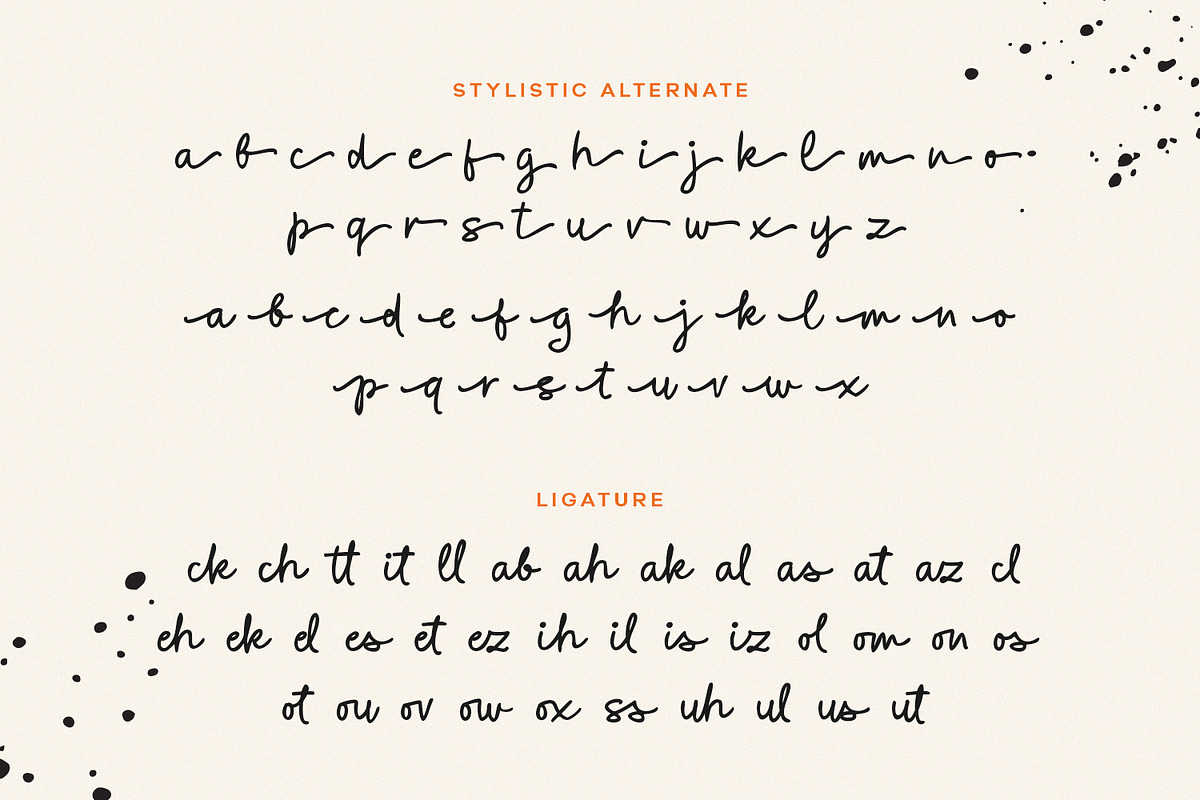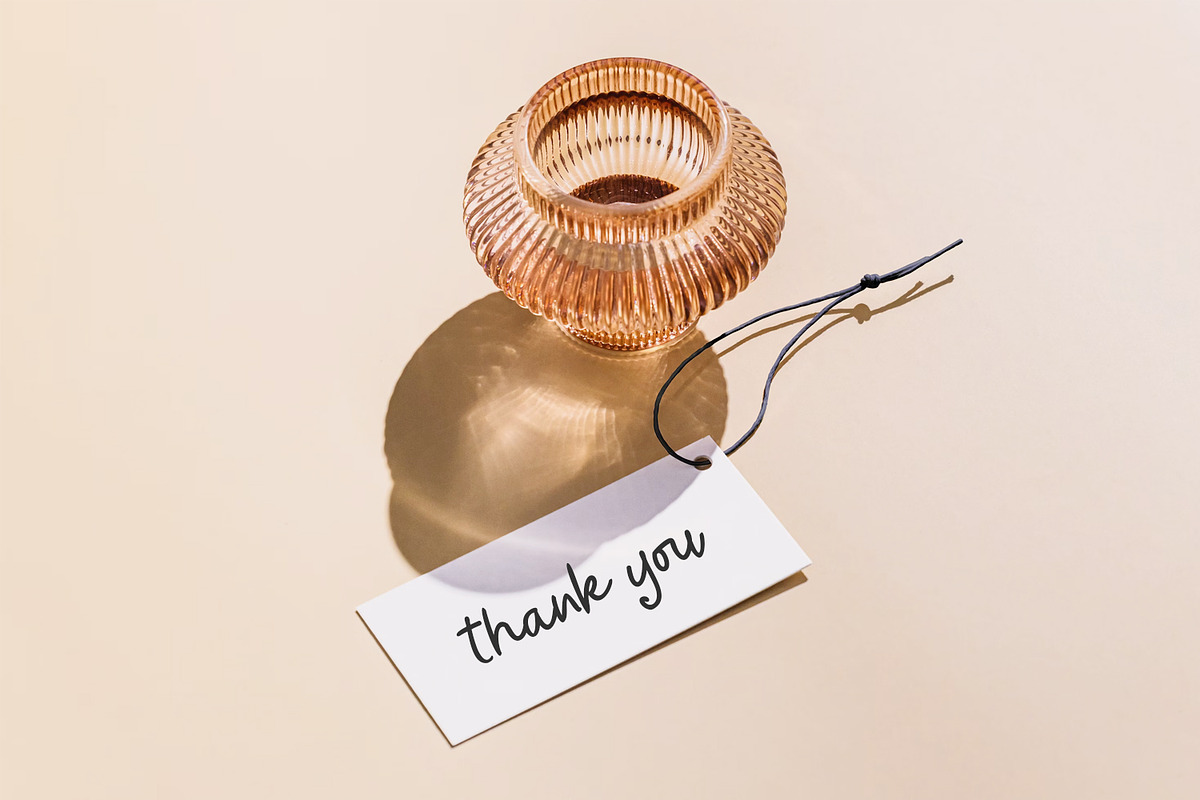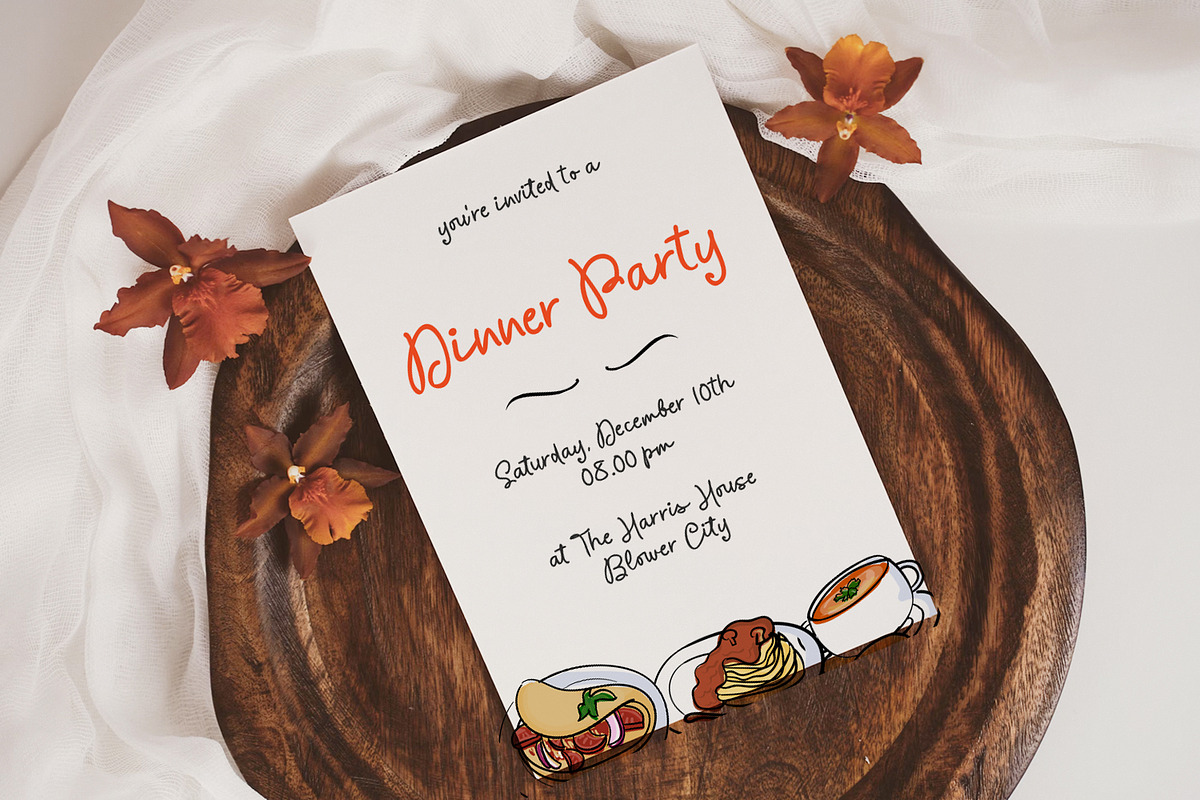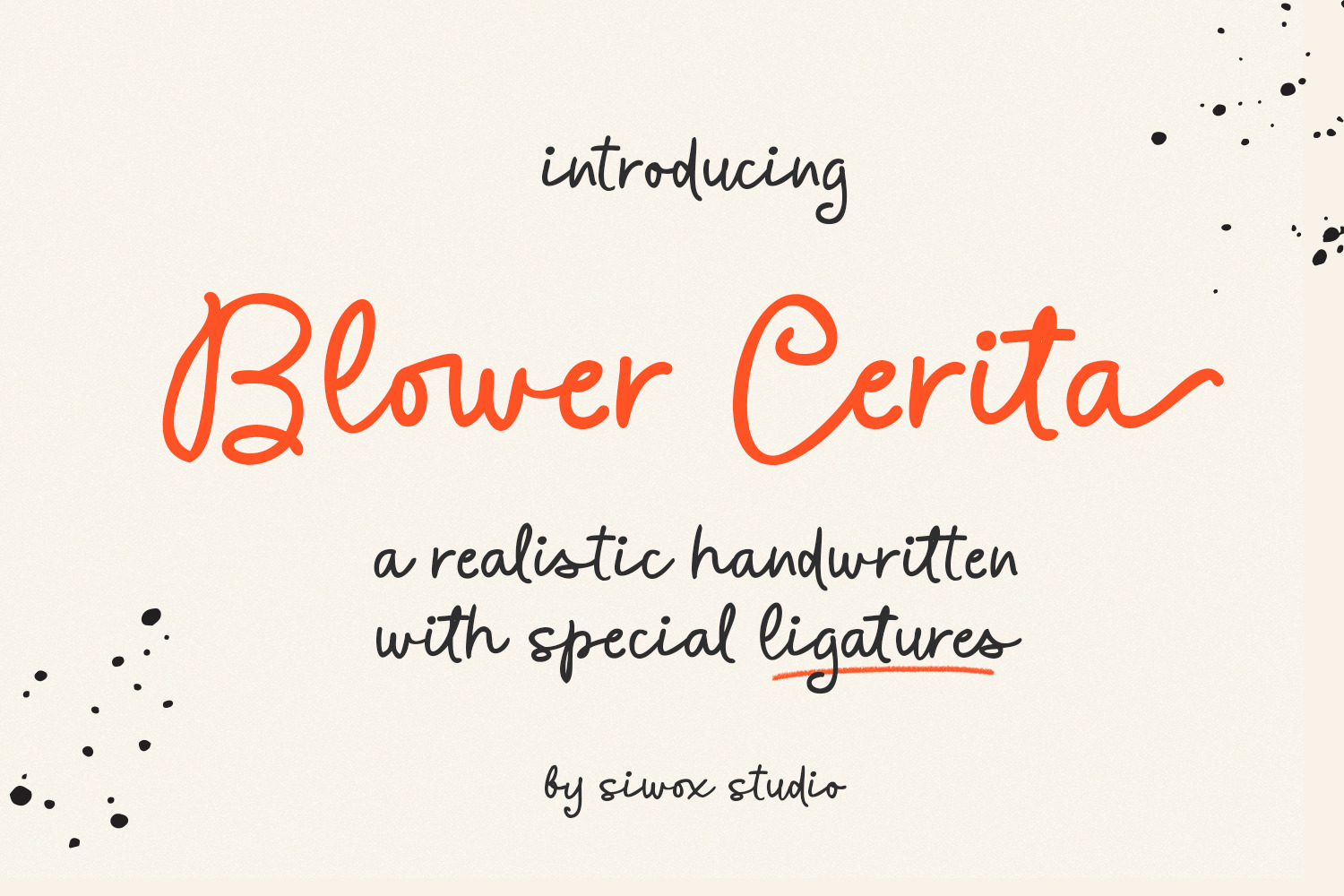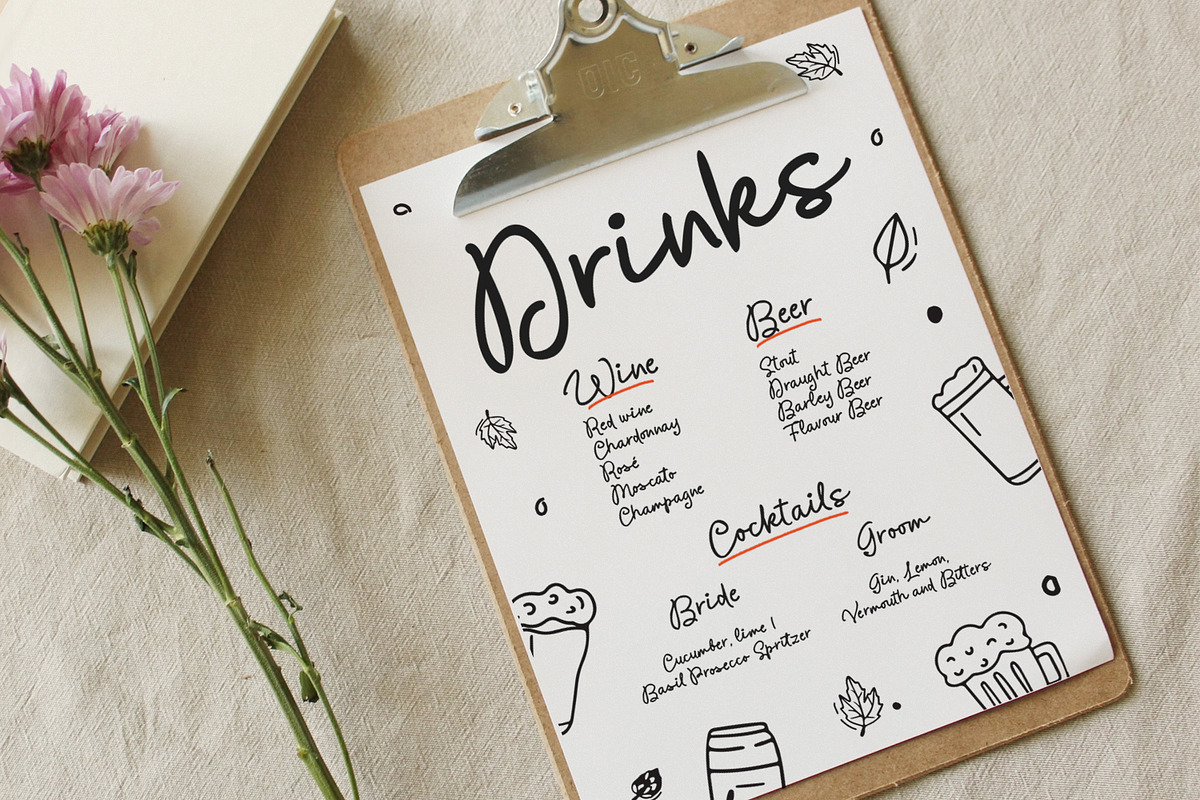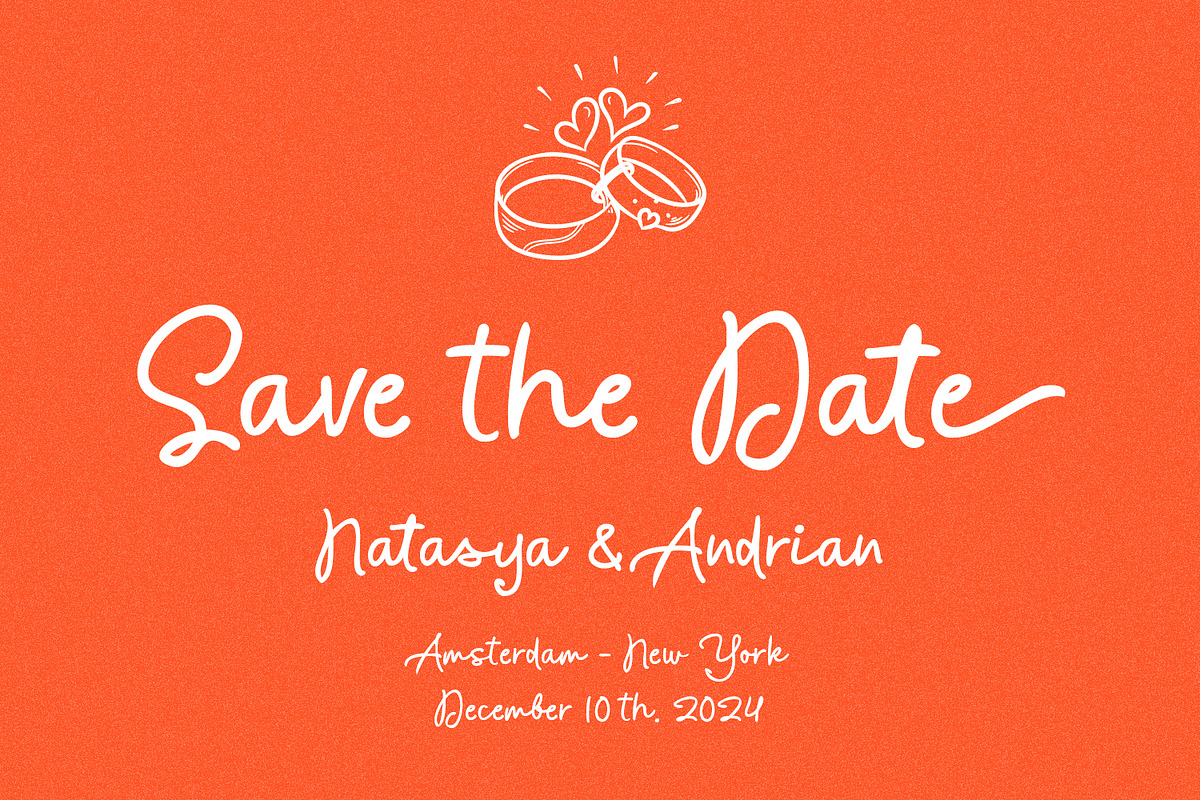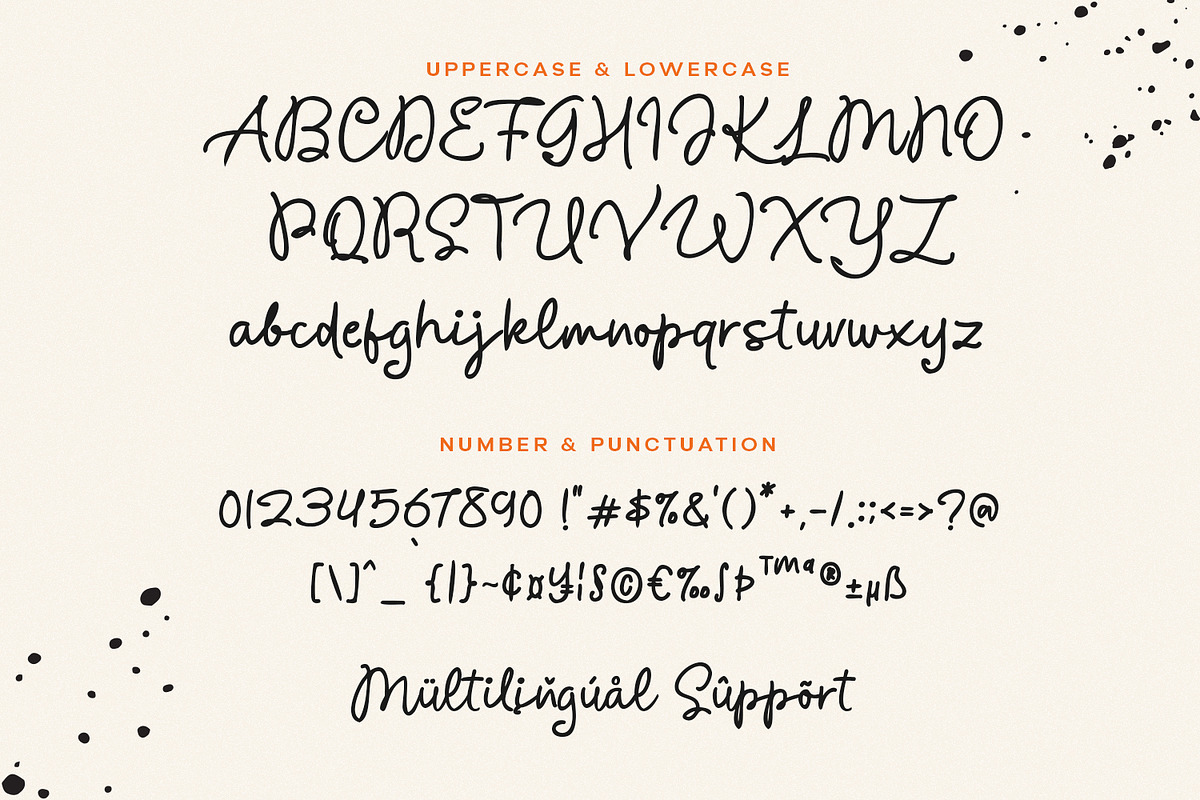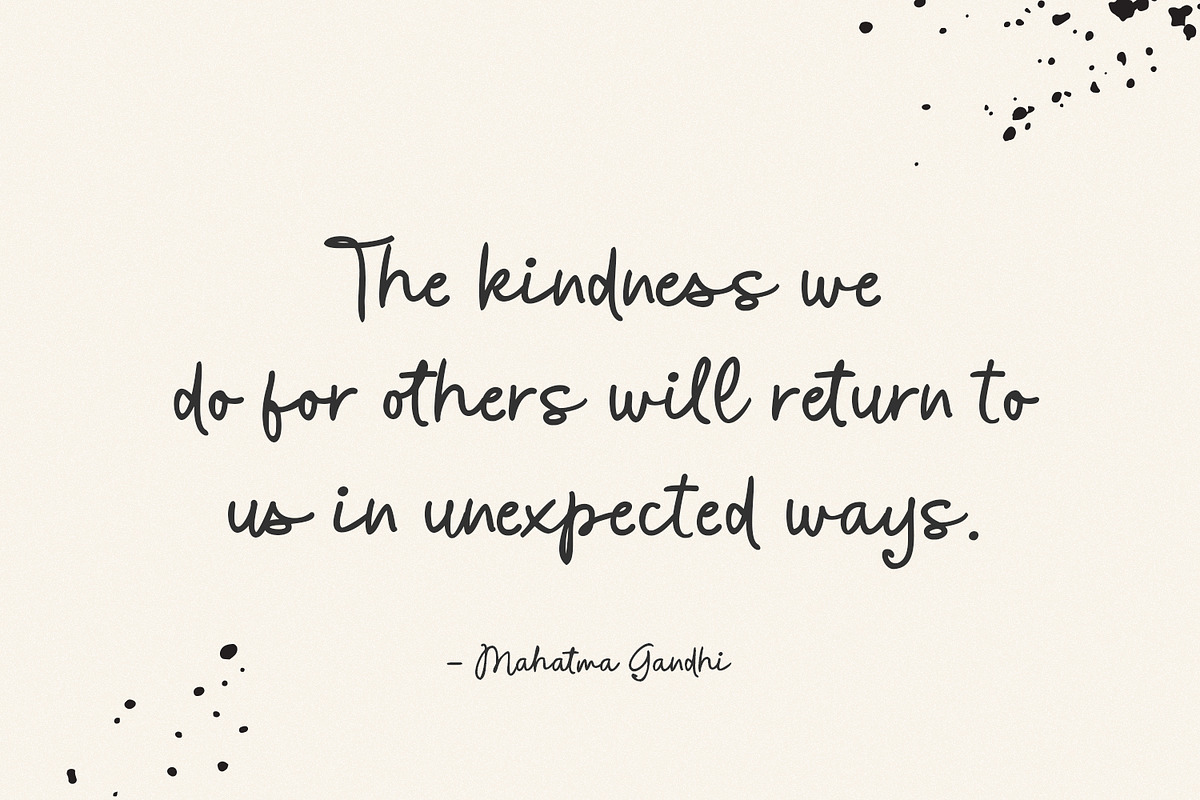
Blower Cerita - a handwritten font
Blower Cerita a realistic handwritten font
This handwritten font is perfect for any creative project. Be sure to click on the image to explore all the available elements. This product is designed to help you enhance your digital images, making them even more beautiful and unique.
This pack can be used for a variety of purposes, such as creating logos, invitation cards, wedding invites, birthday cards, home decor, holiday gift packaging, party decorations, fabric prints, and much more.